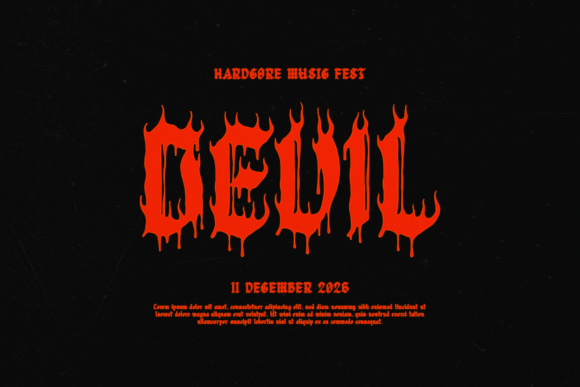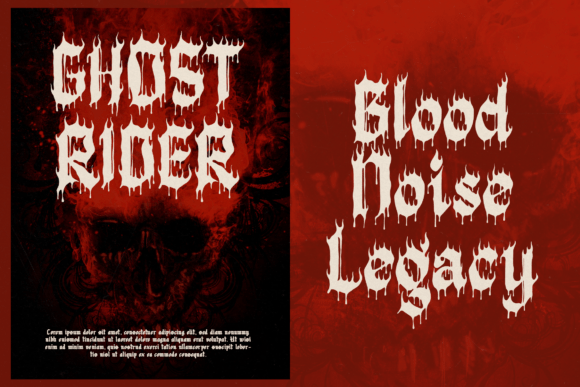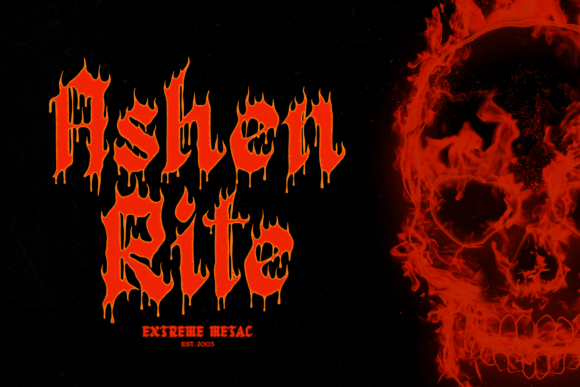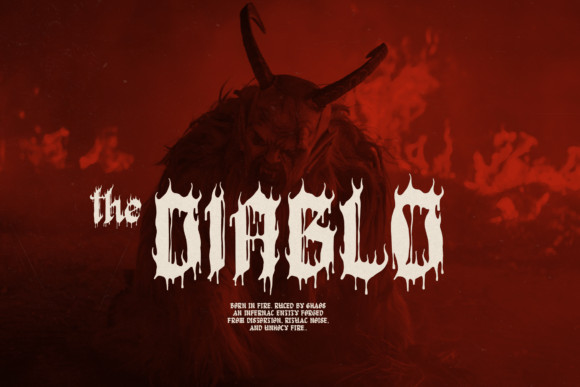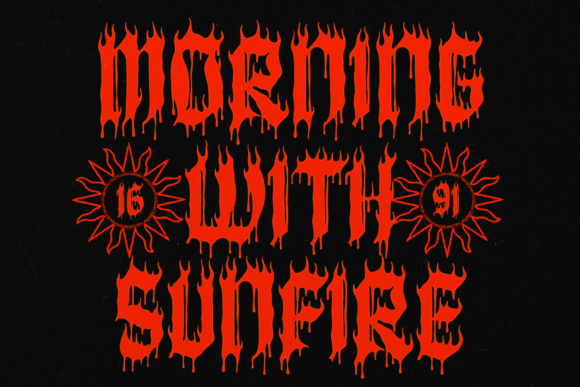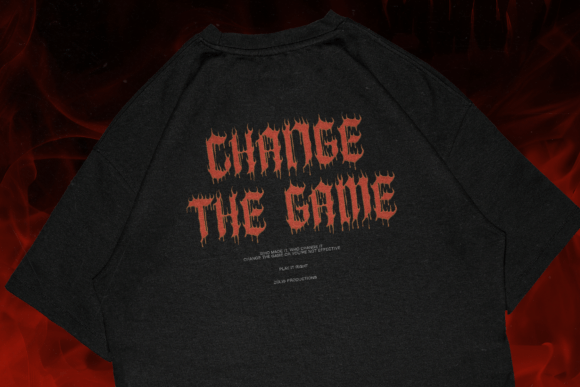
Introduction to Madrock Font
Imagine you’re in the middle of a creative project, and you’re searching for that perfect design element to give it an extra boost of energy. You’ve tried every font, every color scheme, and every layout combination, but nothing seems to capture the essence of your vision. That’s where the Madrock Font comes in – a powerful display blackletter typeface that’s designed to ignite your designs and leave a lasting impression.
With its dramatic, flame-like terminals and molten aesthetic, the Madrock Font is the ultimate choice for designers looking to create high-octane graphics, edgy branding, and rebellious visual identities. Whether you’re working on a high-energy event, a heavy metal album cover, or a streetwear brand, this font brings the heat to every character. Plus, with its unique ligatures and multilingual support, you can trust that your message will remain legible even amidst its chaotic, fiery forms.
Key Features of Madrock Font
- Unique blend of modern and vintage styles, ideal for creative projects that require a distinctive touch.
- High-quality design with precise lines and shapes, suitable for use in print and digital applications.
- Perfect for designers and artists looking for a unique and eye-catching font to elevate their work and stand out in a crowd.
Honest Review: Madrock Font
What works well: ✨ The Madrock Font has a unique, edgy aesthetic that would be perfect for a creative project that requires a bold statement. I particularly appreciate its transparent background, which makes it easy to layer with other design elements.
Here are some of the key features that caught my attention:
- High-quality design that’s perfect for making a statement
- Transparent background for seamless layering
However, I did encounter a few limitations: ⚠️ The font’s bold aesthetic can sometimes feel overwhelming, and it may not be suitable for more subtle design projects. Additionally, the font’s versatility is somewhat limited by its unique style, which may not appeal to all designers.
Overall, I think the Madrock Font is a great addition to any designer’s toolkit, especially for creative projects that require a bold statement. Just be aware of its limitations, and use it judiciously to get the most out of this high-quality design resource.
Common Use Cases for Madrock Font
Madrock Font is ideal for use in creative projects, such as logos, posters, and social media graphics. It’s also suitable for use in presentations, documents, and other business materials that require a high-quality design resource.
Yes, the Madrock Font is designed to be used on a transparent background. The font’s transparent background allows for seamless integration with your design, making it perfect for creative projects that require a high level of customization.